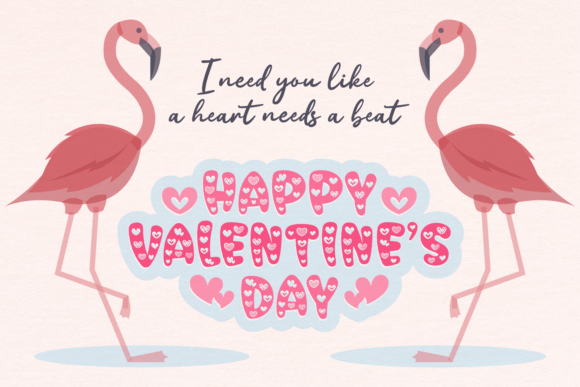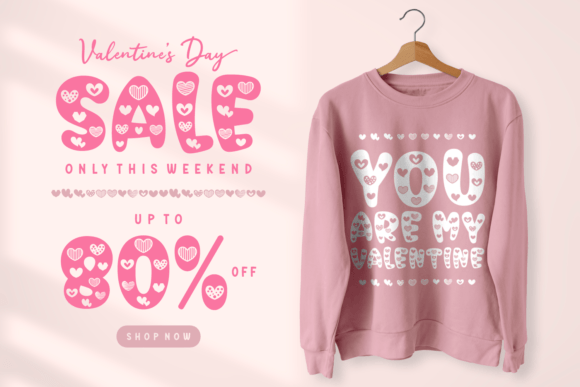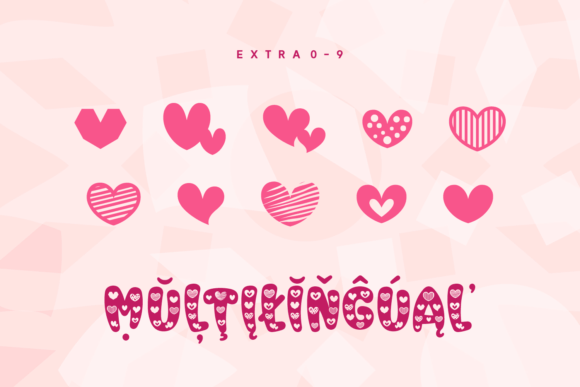
Introduction to Lovin Kites Font
Lovin Kites is a cute and romantic decorative font.
The font features lots of little hearts inside the characters, making it suitable for a multitude of projects Keep in mind that the fond is PUA encoded, meaning that you can access all delightful glyphs and swashes with ease.